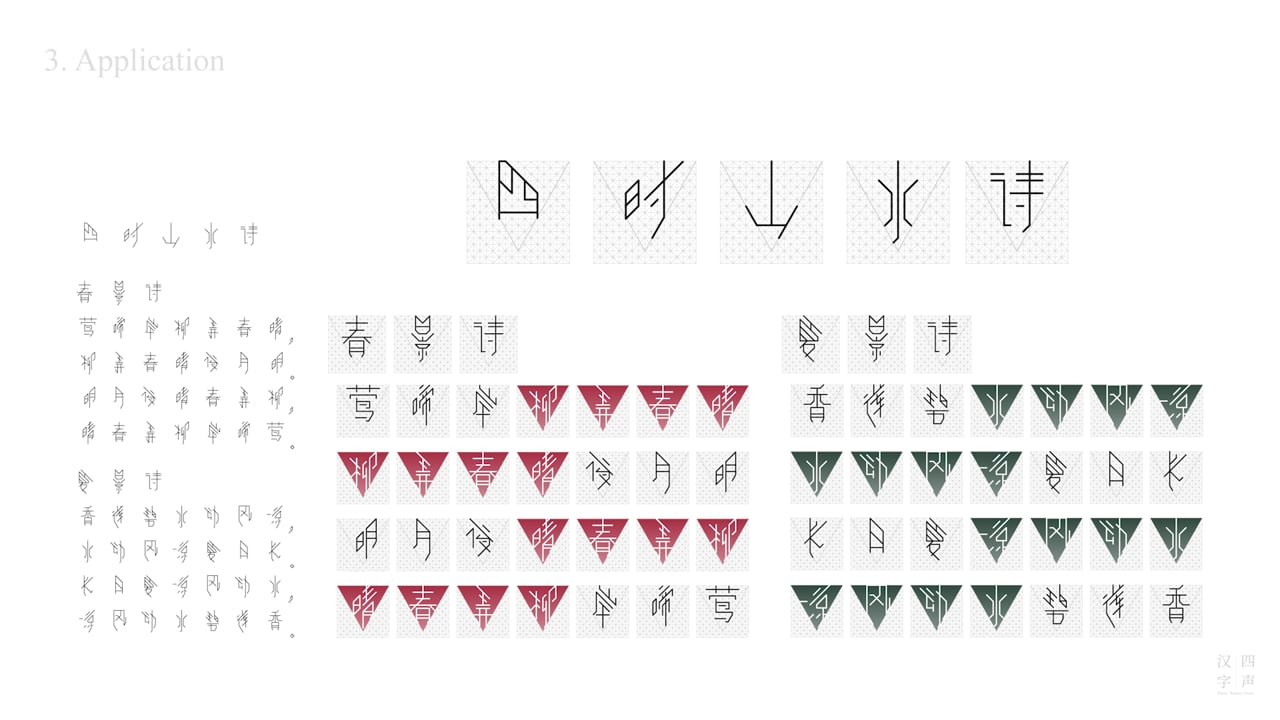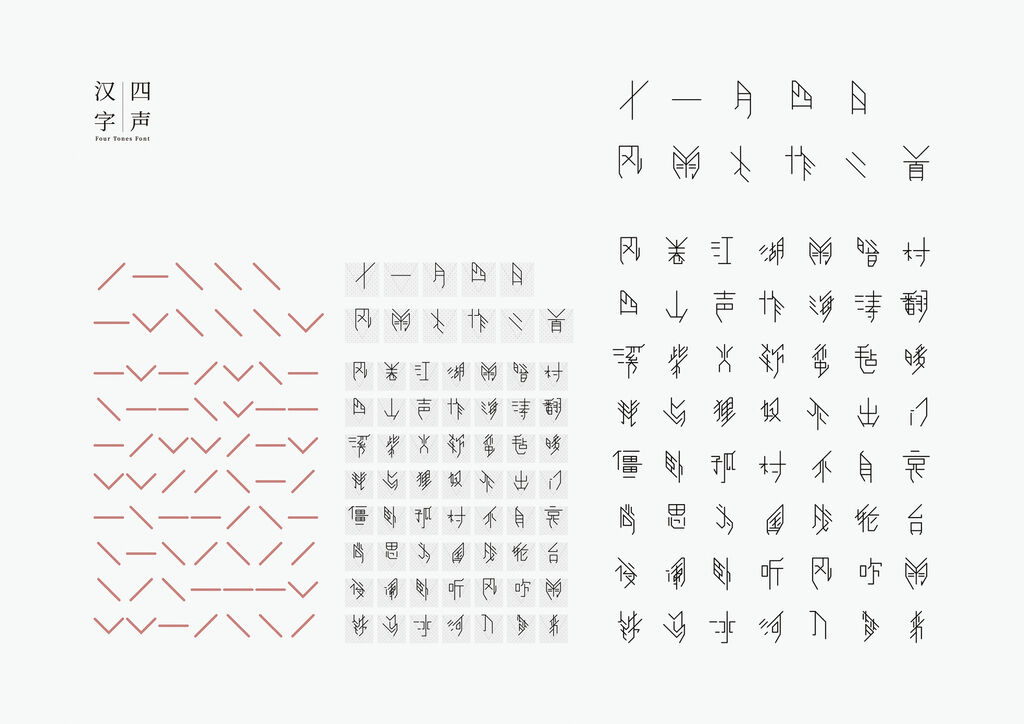
Chinese is a tonal language, which means that the way a syllable is pronounced can change its meaning. This typeface visualises the four tones of modern Mandarin – level tone, rising tone, low tone and falling tone. The font design is fundamentally inspired by the phonetic symbols of the four tones. When used for classical Chinese poetry, the expressive shapes of the font help readers understand the sound and rhythmic changes of a poem. Beyond practical benefit, the filigree characters exude an artistic charm.